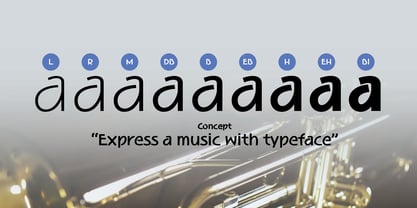
Amabile
by REN FONT
The Amabile Font Family was designed by Kazuo Kanai and published by REN FONT. Amabile contains 9 styles and family package options. More about this family
REN FONT has steadily built its reputation by repeatedly earning accolades in the Typeface category of the “Yearbook,” an exhibition organized by the Japan Typography Association (NPO). Founded in 2001 with the aim of bringing a fresh breeze to the font industry, REN FONT continues to create distinctive typefaces that stand out.
The hand-drawn-style fonts crafted by REN FONT’s type designer, Kazuo Kanai, have received high praise from professional designers and typographers for their exceptional quality.
The typeface name is “Amabile (Adorable, прекрасный, Αρκετά/Αξιολάτρευτο)”. It means “lovely” in music terms.
The design feature reflects the feature of Japanese typeface “Waon”, as the depending latin characters of which this typeface is designed.
“Amabile” briefly expresses the basic concept of Waon, to “Express a music with typeface”.
The non-Japanese characters in the Japanese font are basically composed with Latin, Cyrillic, and Greek. In addition to these 3 types of characters, “Amabile” have the capability of 87 languages by extending character types so called “W1G”, which consists of Latin supplements, Cyrillic supplements, Greek supplements, Latin extensions.